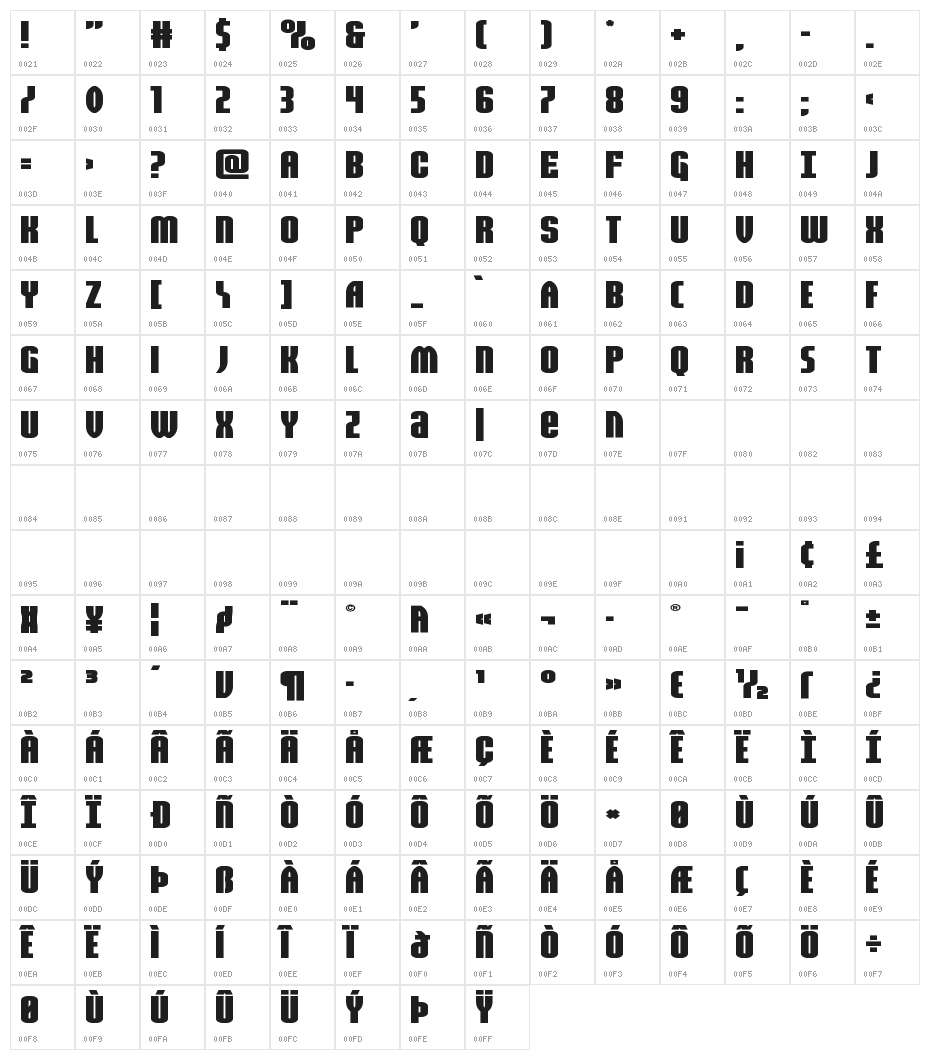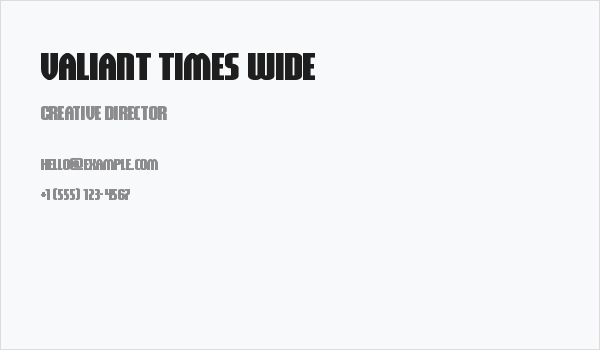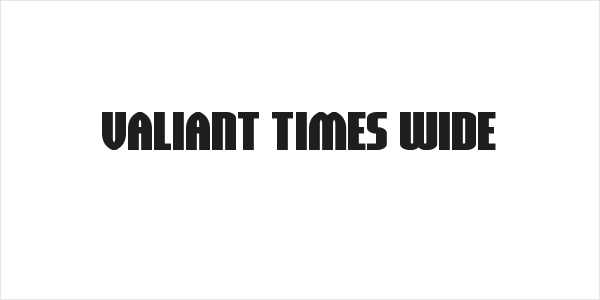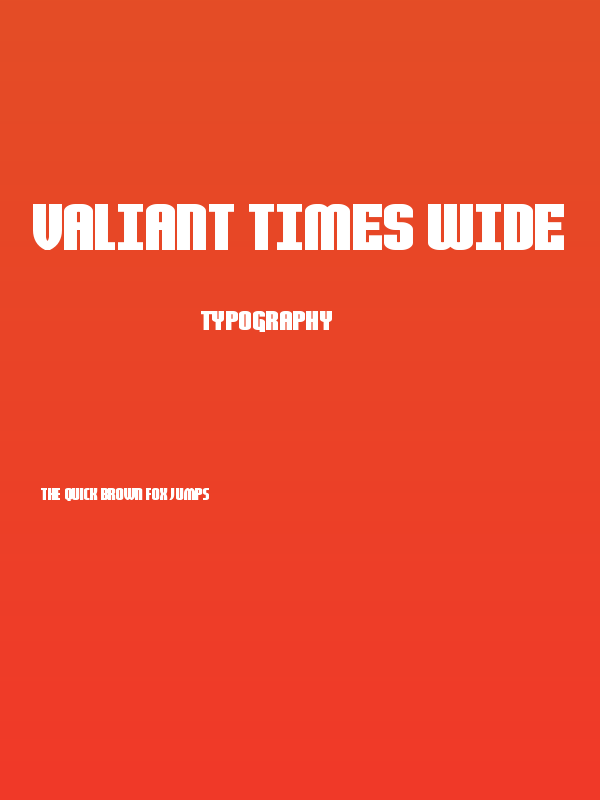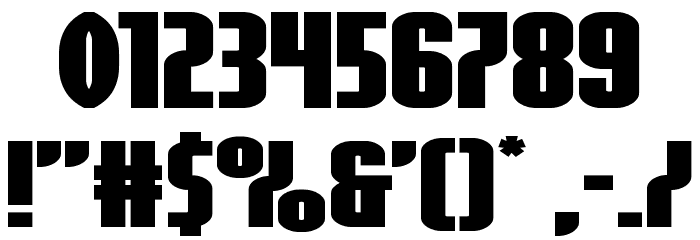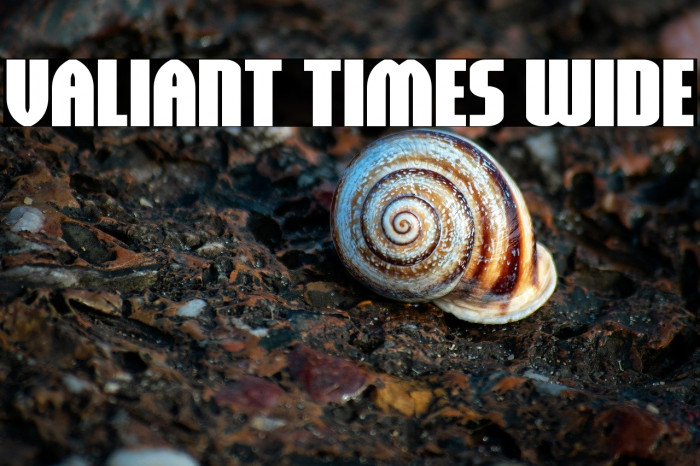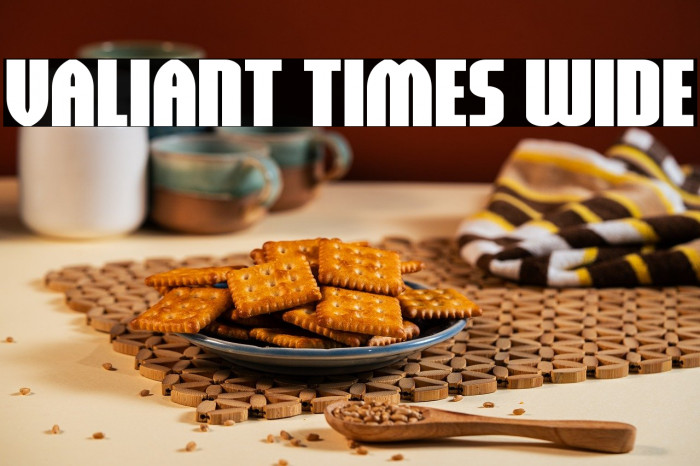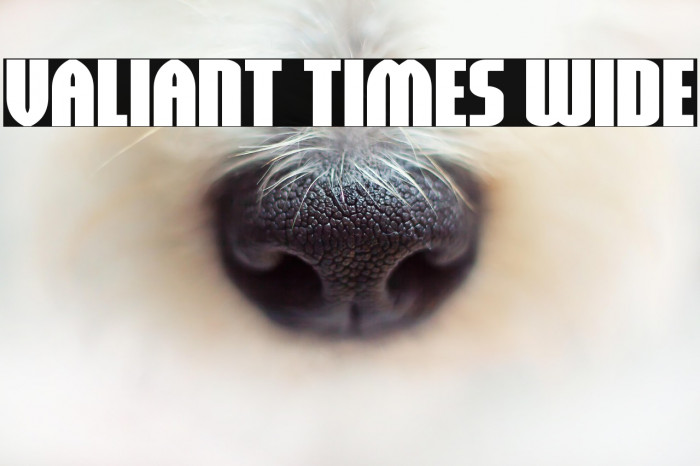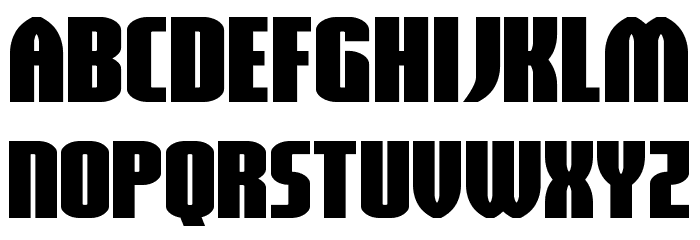
Valiant Times Wide Font
Valiant Times Wide Description
This font features a bold and impactful design with wide, block-like characters. The uppercase letters are particularly striking, with a strong presence that commands attention. The lowercase letters maintain the same boldness, ensuring consistency throughout. Numbers and special characters are equally robust, making them suitable for various applications. The overall style is modern and assertive, ideal for making a statement.
| Proposed Projects | Ideal for headlines, posters, branding, and any project requiring a strong visual impact. |